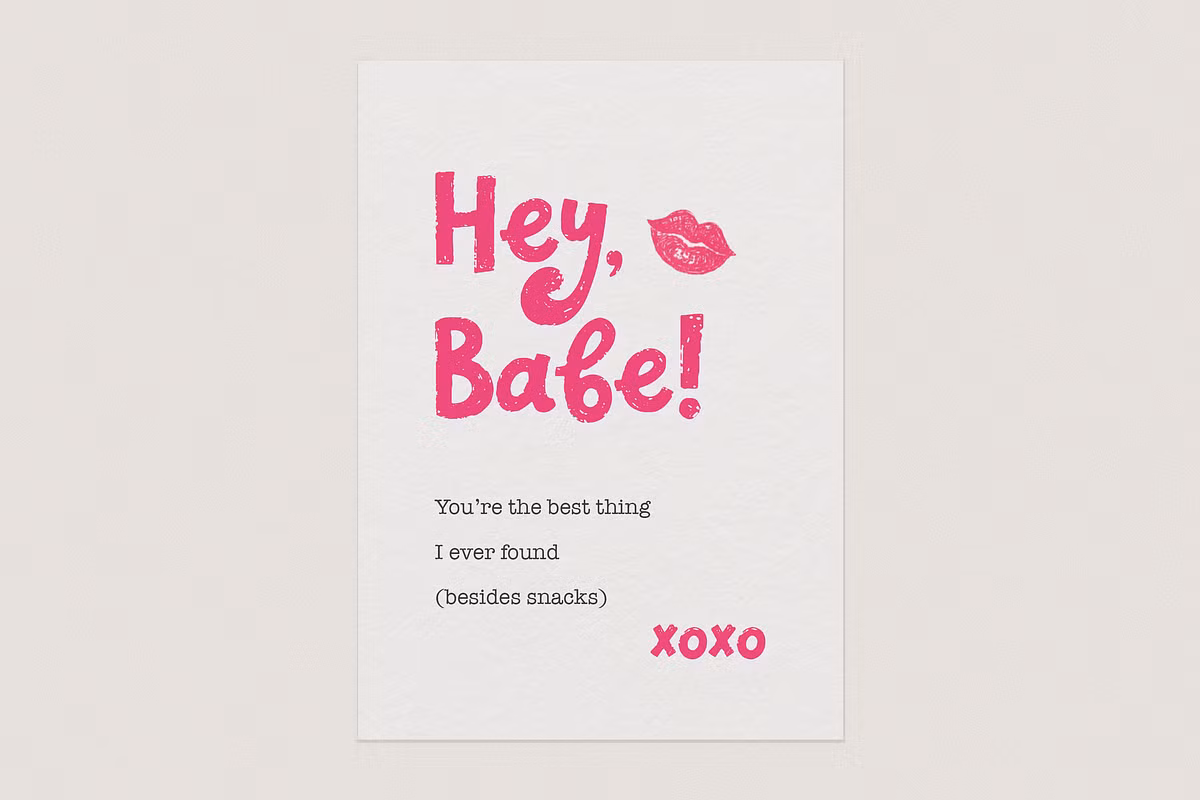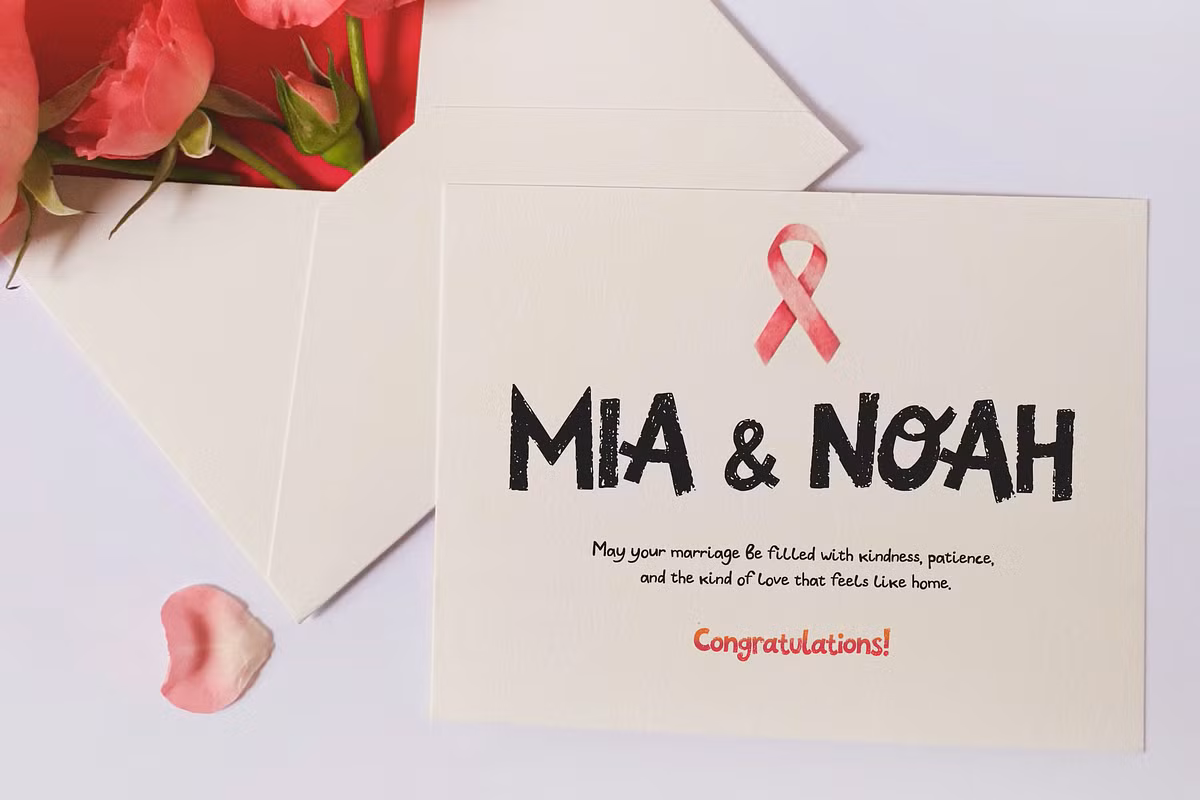
Strawberry Ruckus: Playful Hand-Drawn Chunky Display Font
Introduction to Strawberry Ruckus
Strawberry Ruckus is a really cute font that’s perfect for adding a playful touch to your projects. It’s got a fun, hand-drawn look that’s a little bit messy, but in a charming way. If you like fonts that are bubbly and full of personality, you’ll love Strawberry Ruckus.
It’s great for anything that needs a bit of whimsy and creativity, like designs that are meant to be fun and lively. The font’s unique mix of sweetness and messiness makes it stand out, and it’s sure to add a joyful vibe to whatever you’re working on.
Whether you’re looking to add some personality to a design or just want a font that’s a little bit different, Strawberry Ruckus is a great choice. It’s perfect for projects that need a fun and playful touch, and it’s sure to bring a smile to people’s faces.
Design Style of Strawberry Ruckus
What makes Strawberry Ruckus really special is the way it looks – it’s all hand-drawn, which gives it a unique personality that you don’t often see in regular fonts. The letters are nice and chunky, so they’re easy to read, and they also feel really friendly and warm.
Plus, the texture of the letters adds to their playful feel, making each one seem like it’s jumping off the page and inviting you to take a closer look. This font has a lot of character, and its fun, lively vibe is perfect for making a statement.
Overall, the hand-drawn look of Strawberry Ruckus is what sets it apart and makes it so charming. The characters in Strawberry Ruckus have a consistent look, but they’re also a little bit different from each other, which makes them really special. This makes the font great for projects that are meant for kids or for anything where you want to seem friendly and relaxed.
Character Sets and Special Features
The Strawberry Ruckus font has a lot to offer – it’s got all the letters, both big and small, numbers, and lots of punctuation marks. This means you can use it for all sorts of things, like making a fun banner or designing a super cute sticker.
And the best part is, you can choose between a textured version or a smooth one, so you can pick the style that’s just right for what you’re working on. The Strawberry Ruckus design has a really playful feel to it, with edges that aren’t quite straight and shapes that are a bit wonky – it’s like something you’d draw by hand.
This kind of detail is perfect for projects where you want to show off your creative side and have a bit of fun. It’s great for adding a touch of personality to your work and making it stand out.
Use Cases for Strawberry Ruckus
Strawberry Ruckus is really good for lots of different things, which makes it a great pick for designers and people who like to create stuff. Let’s take a look at some of the ways people like to use it.
- Stickers and labels: A great way to add some fun to your stuff.
- Planner Pages and Scrapbooks: Use it to highlight important dates and memories.
- Kids Crafts and Classroom Projects: Perfect for educational materials and children’s crafts.
- Posters and Merchandise: Create eye-catching posters and t-shirts.
- Social Media Posts and YouTube Thumbnails: Grabs attention on social media platforms.
- Logos and Playful Branding: Build a brand identity that exudes fun.
Pairing Suggestions for Strawberry Ruckus
To create stunning designs, it’s essential to know how to pair Strawberry Ruckus with complementary fonts. When choosing a secondary font, consider the following suggestions:
- Simple Sans-Serif Fonts: Pair it with a clean sans-serif typeface like Montserrat or Open Sans for body text.
- Fancy Script Fonts: Try pairing it with a script font like Pacifico or Dancing Script for a classy look.
- Bold Serif Fonts: A bold serif font such as Merriweather can provide nice contrast.
Strawberry Ruckus is not just a font, it’s a way to add some fun to your work. The letters are drawn by hand and look really playful, which makes it perfect for things like branding, educational stuff, and more.
When you use Strawberry Ruckus, it’s like adding a splash of color to your design – it makes people want to look at it and interact with it. The letters are big and bubbly, and they have a cool texture that makes them stand out.